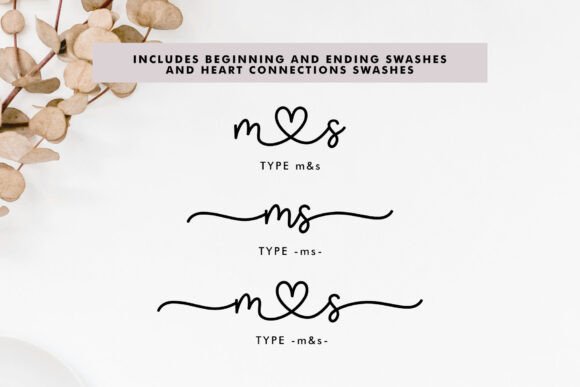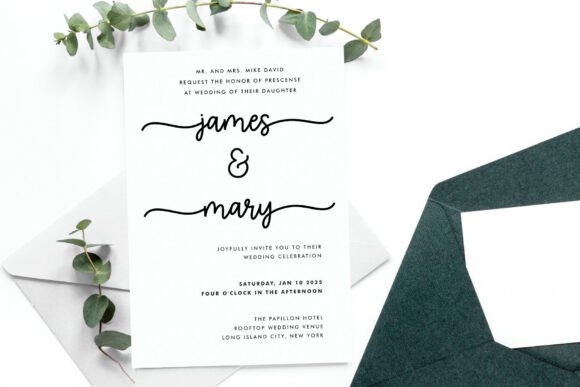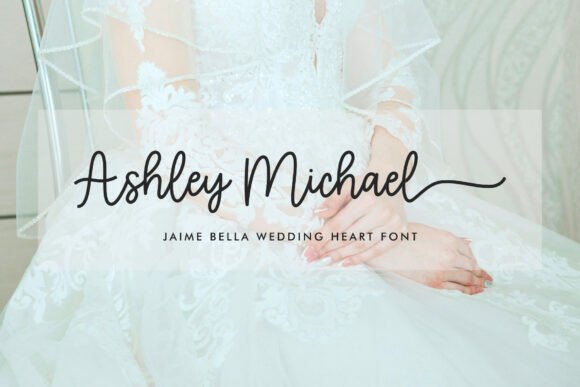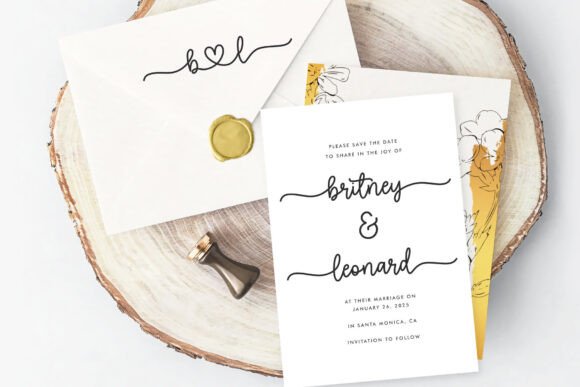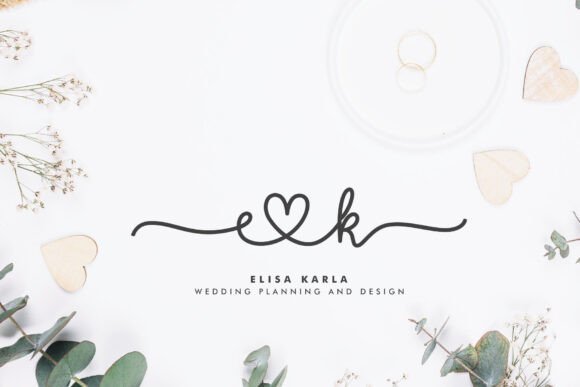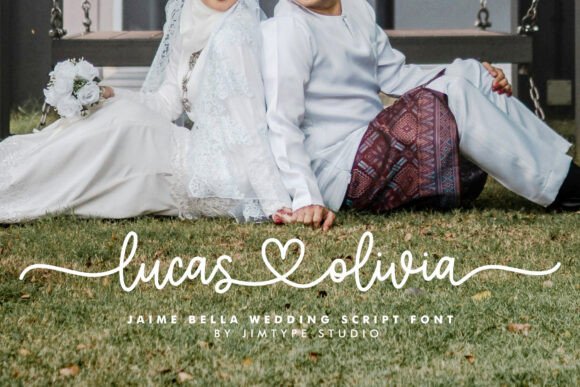
Introduction to Jaime Bella Font
Have you ever found yourself stuck in a design rut, searching for the perfect font to bring your creative project to life? For designers, it’s a common challenge that can make or break the success of a design. It was during one such moment that I stumbled upon the Jaime Bella Font, and I knew I had to share it with fellow creatives.
| 👤 Author | jimtypestudio |
As I delved deeper into the world of this elegant font, I discovered that its name is inspired by the French word for “I love.” It’s a fitting tribute to the spirit of romance and love that this font embodies. With its high-quality design and transparent background, the Jaime Bella Font is a valuable resource for designers looking to add a touch of elegance to their projects.
Whether you’re working on a wedding project or creating a brand identity, the Jaime Bella Font is a free download that’s sure to impress. Its suitability extends far beyond weddings, making it a must-have design resource for any creative project that demands a heartfelt touch.
Key Features of Jaime Bella Font
- High-quality design resource for creative projects, perfect for designers and artists.
- Unique, elegant design with a touch of sophistication, ideal for luxury brands, fashion, and high-end creative projects.
- Designed to be versatile and easily customizable, making it a valuable addition to any design resource library.
Honest Review: Jaime Bella Font
As a designer, I’m always on the lookout for high-quality design resources that can elevate my creative projects. Recently, I had the chance to work with the Jaime Bella Font, and I’m excited to share my honest review.
What works well: ✨ The Jaime Bella Font is incredibly versatile, making it suitable for a wide range of creative projects, from branding and marketing materials to digital products and web design. Its modern and elegant design aesthetic is sure to impress. Additionally, the font is available for free download, which is a major plus.
What’s more, the font has a transparent background, allowing for seamless integration with any design element. This level of flexibility is a game-changer for designers like myself who value simplicity and ease of use.
However, there are a few limitations to consider: ⚠️ The font may not be suitable for projects that require extreme customization or intricate details. Additionally, the font’s modern aesthetic may not appeal to designers who prefer a more traditional or vintage look.
Overall, I’m impressed with the Jaime Bella Font and would recommend it to fellow designers looking for a reliable and high-quality design resource.
Jaime Bella Font
Tips for Getting the Most Out of Jaime Bella Font
Jaime Bella Font features a transparent background, making it easy to use in various design projects. To get the most out of this font, try using it in conjunction with other high-quality design resources. You can also experiment with different font sizes and styles to create a unique look.
Common Use Cases for Jaime Bella Font
Jaime Bella Font is ideal for creative projects, such as branding, logos, and typography-based designs. It’s also perfect for use in presentations, documents, and social media graphics. The transparent background makes it easy to use in designs with complex backgrounds or images.